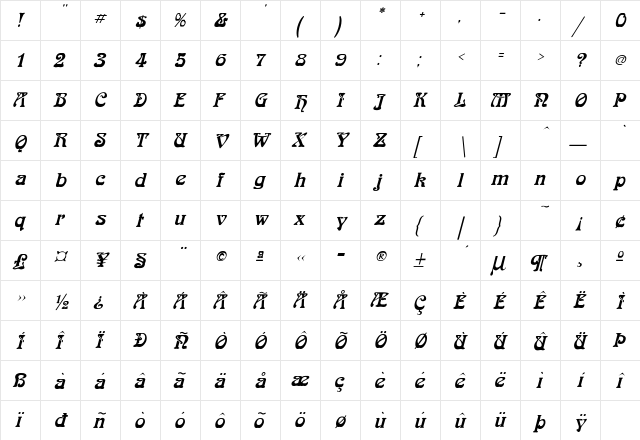
Bockloo Italic
Design Context for Bockloo Typeface
Bockloo is a composed and adaptable typeface that performs quietly and consistently across a wide range of design contexts. The dynamic lean of this cut emphasises speed and emphasis in any layout.
Pro Tip: Use Bockloo for emphasis, pull quotes, and subheadings where its slanted energy can add rhythm to the layout.